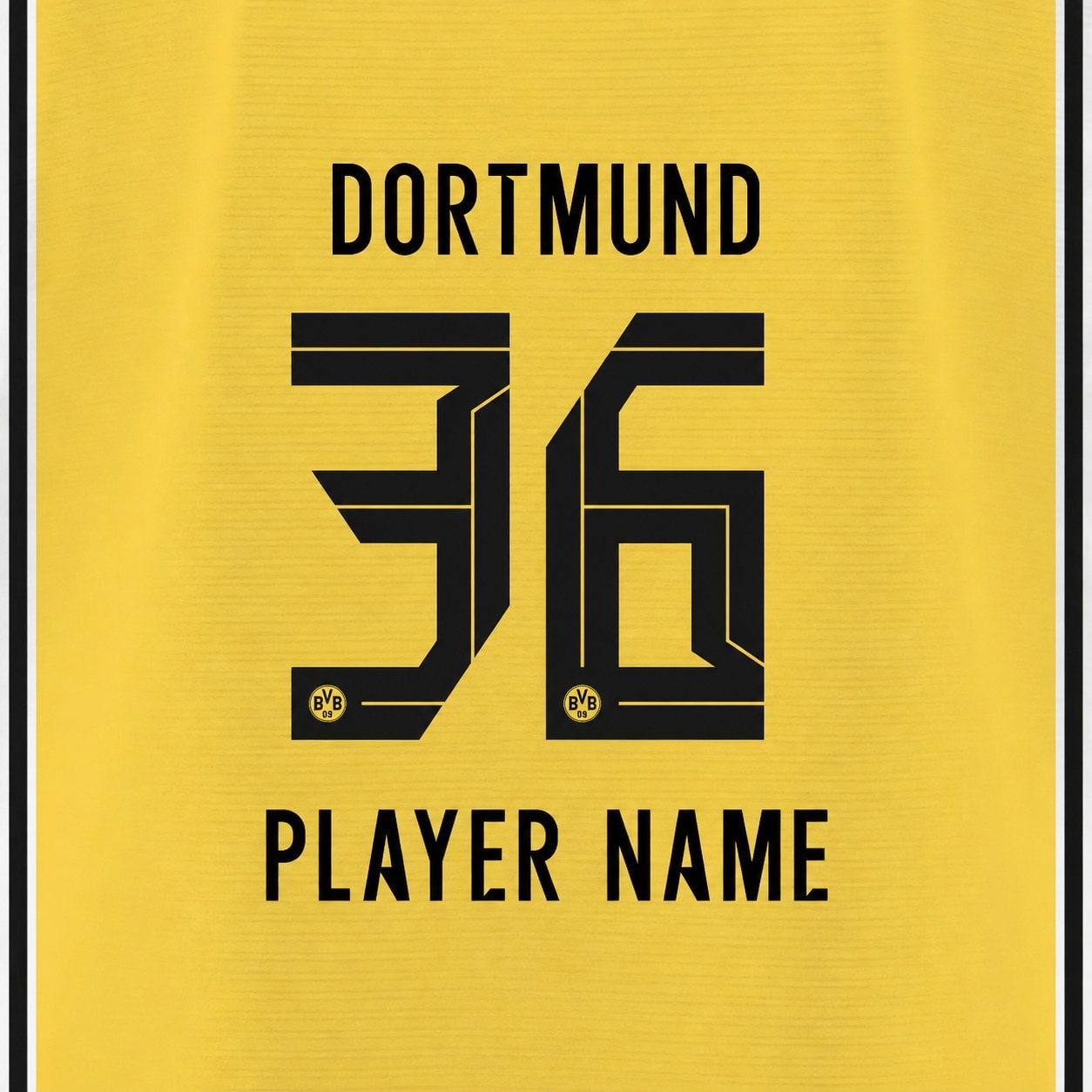
Borussia Dortmund 2026/27 Font Kit – Full A–Z & 0–9 Set
Borussia Dortmund 2026/27 font kit - full A-Z letters and 0-9 numbers set
Complete Borussia Dortmund 2026/27 font set — every letter and every number in one kit, in this season’s lettering style, black colourway as shown.
• Full set included: all letters A–Z + all numbers 0–9, exactly as shown
• Fine crest detailing inside the numbers
• Make any name & number combination (e.g. GUIRASSY 9) — fits adult and kids jerseys